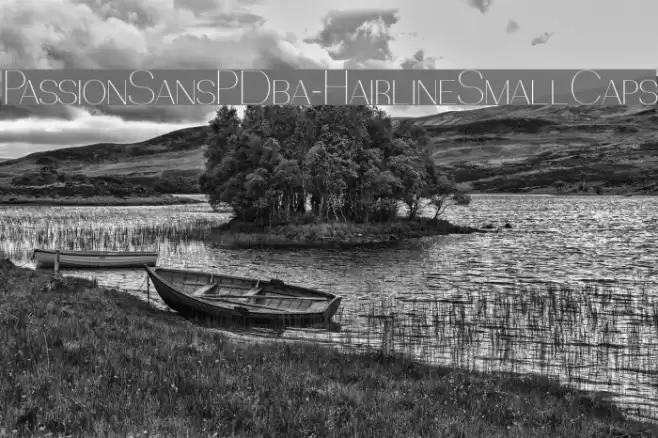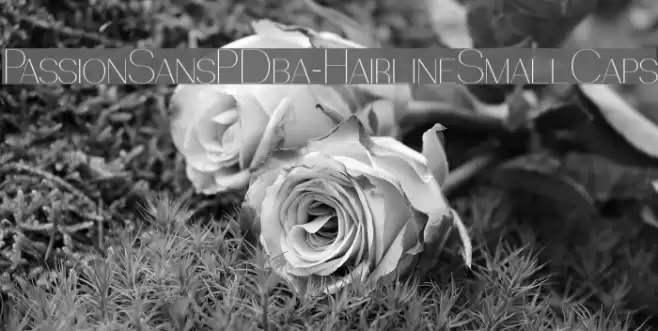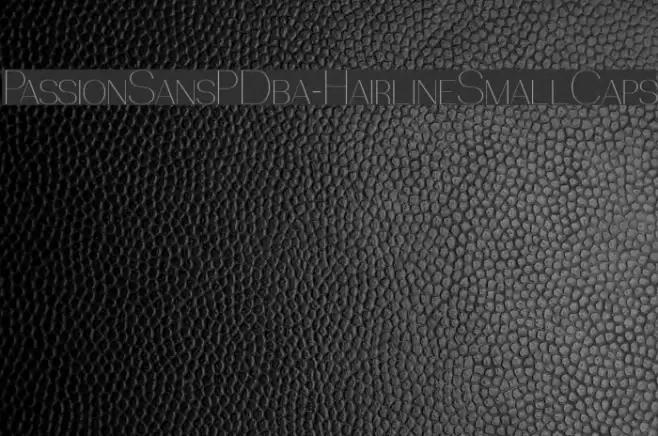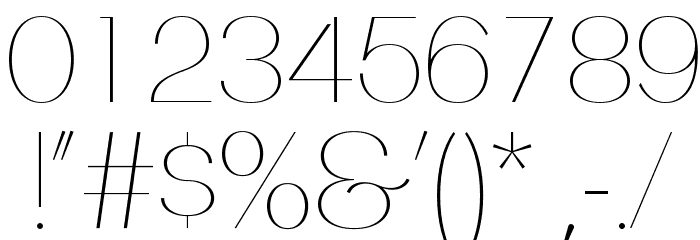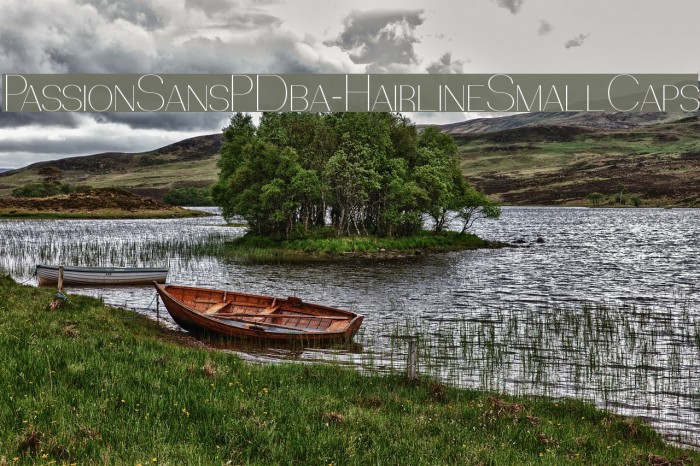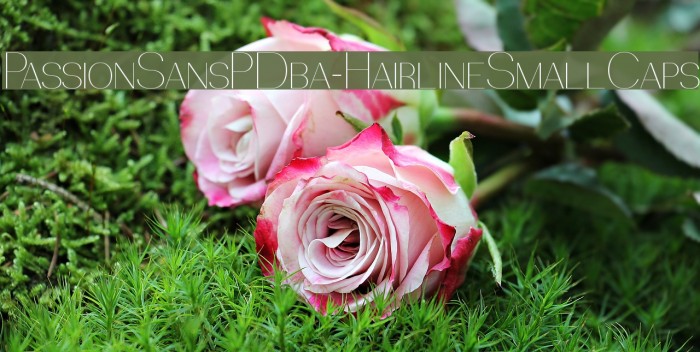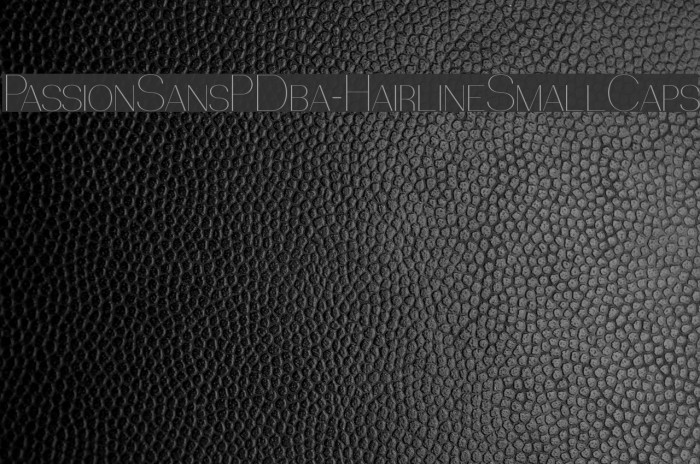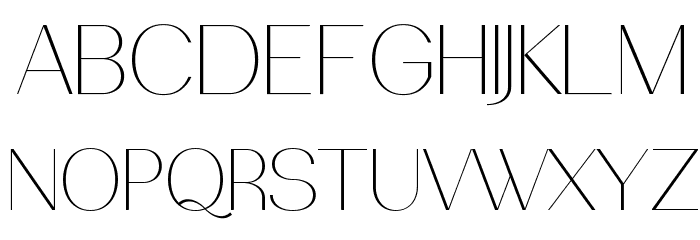
PassionSansPDba-HairlineSmallCaps Font
PassionSansPDba-HairlineSmallCaps Description
This font features a sleek and minimalist design, characterized by its ultra-thin strokes and clean lines. The uppercase letters are uniform in height, creating a sense of harmony and balance. The lowercase letters maintain a similar aesthetic, with a consistent stroke width that gives the font a cohesive look. Numbers are designed with the same thin lines, ensuring readability while maintaining the overall style. Special characters are elegantly crafted, fitting seamlessly with the rest of the typeface. This font exudes a modern and sophisticated vibe, making it suitable for a variety of design applications.
A sleek, ultra-thin font with clean lines and a modern aesthetic from Sans Serif fonts.
- Proposed Projects: Ideal for luxury branding, high-end fashion magazines, minimalist design projects, and modern websites.
- Use Case: Headlines, Logos, Branding